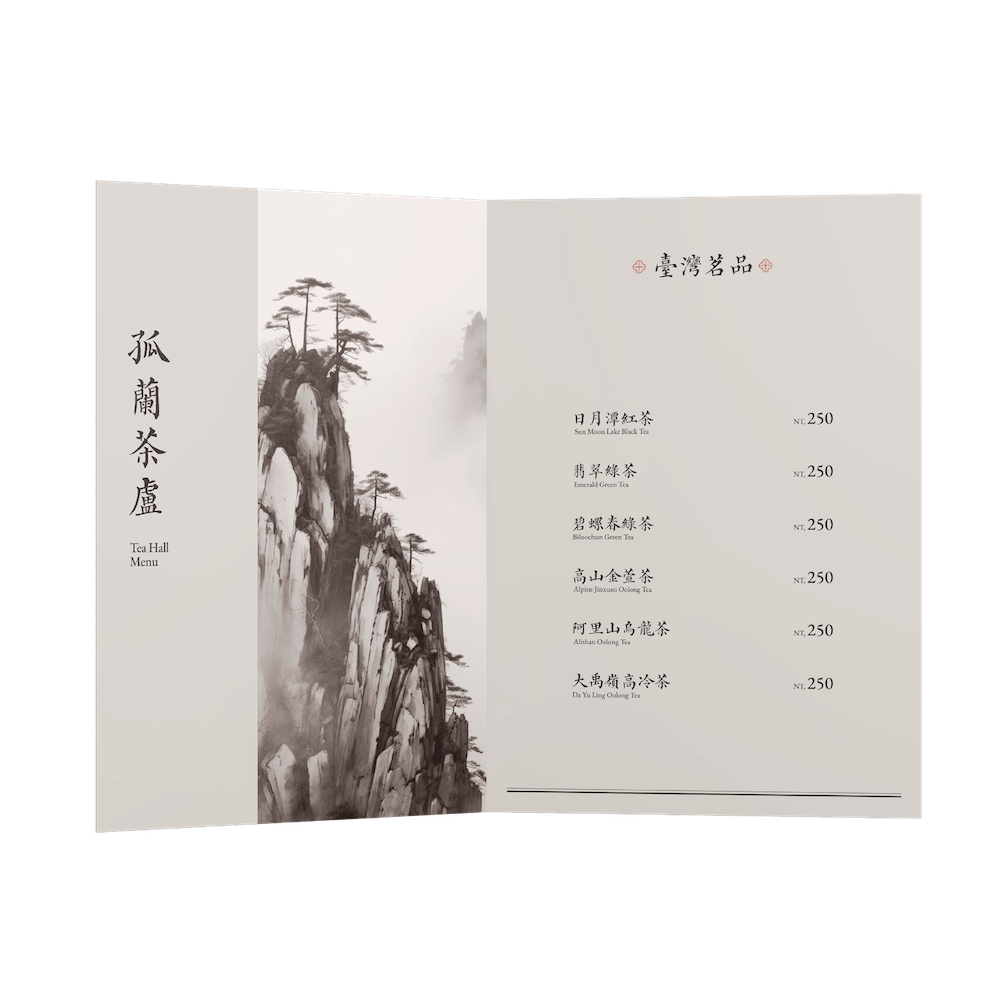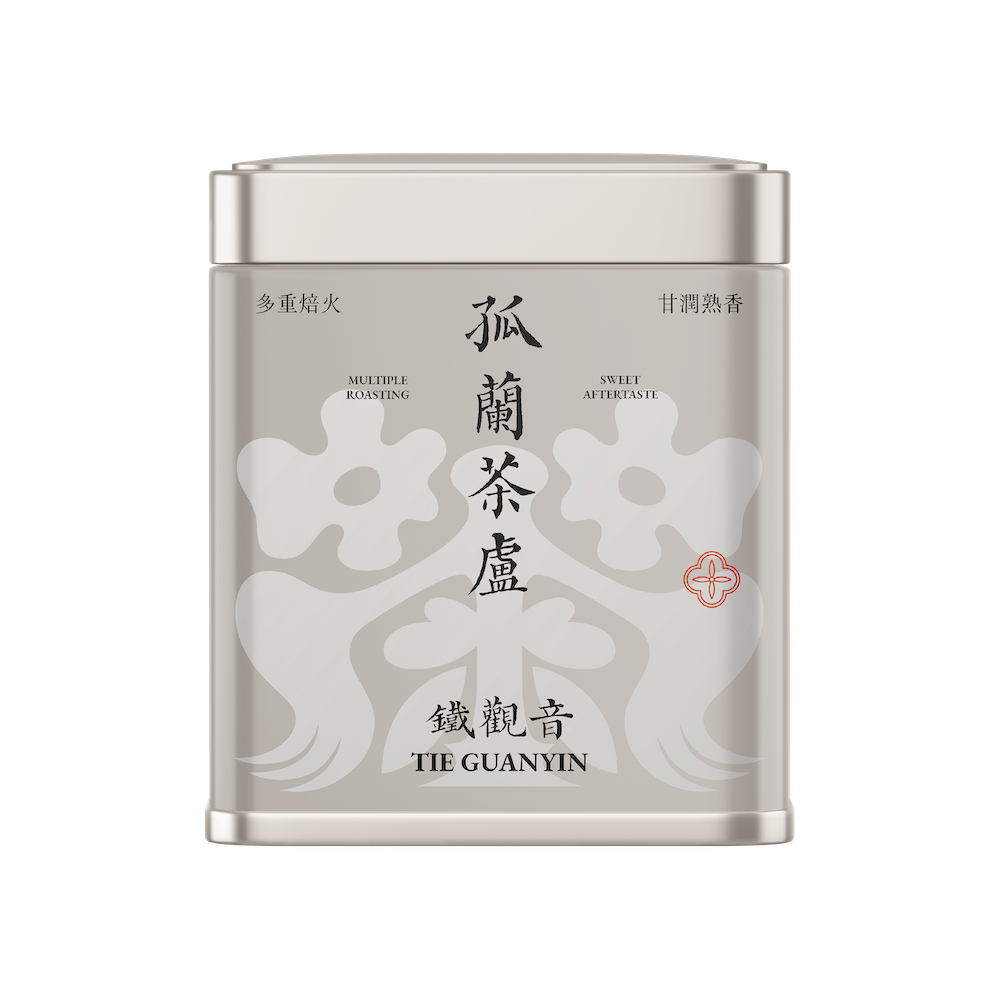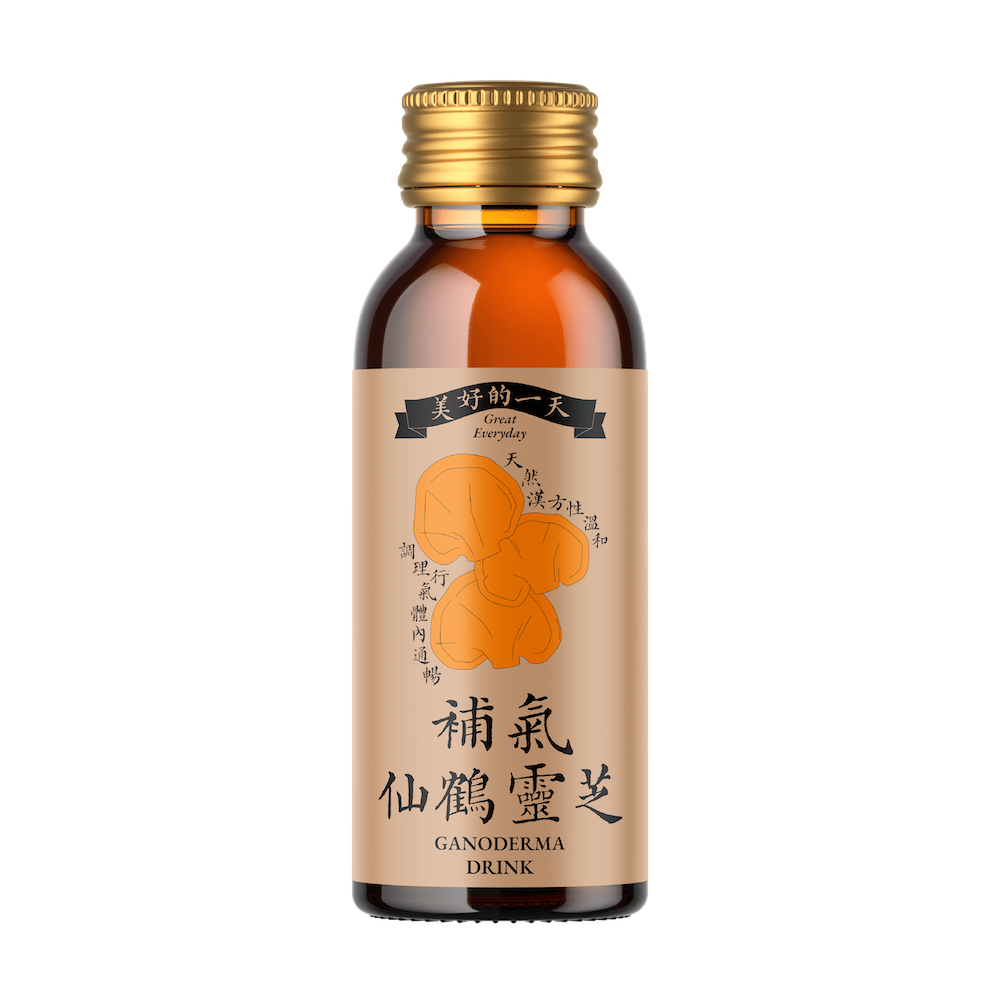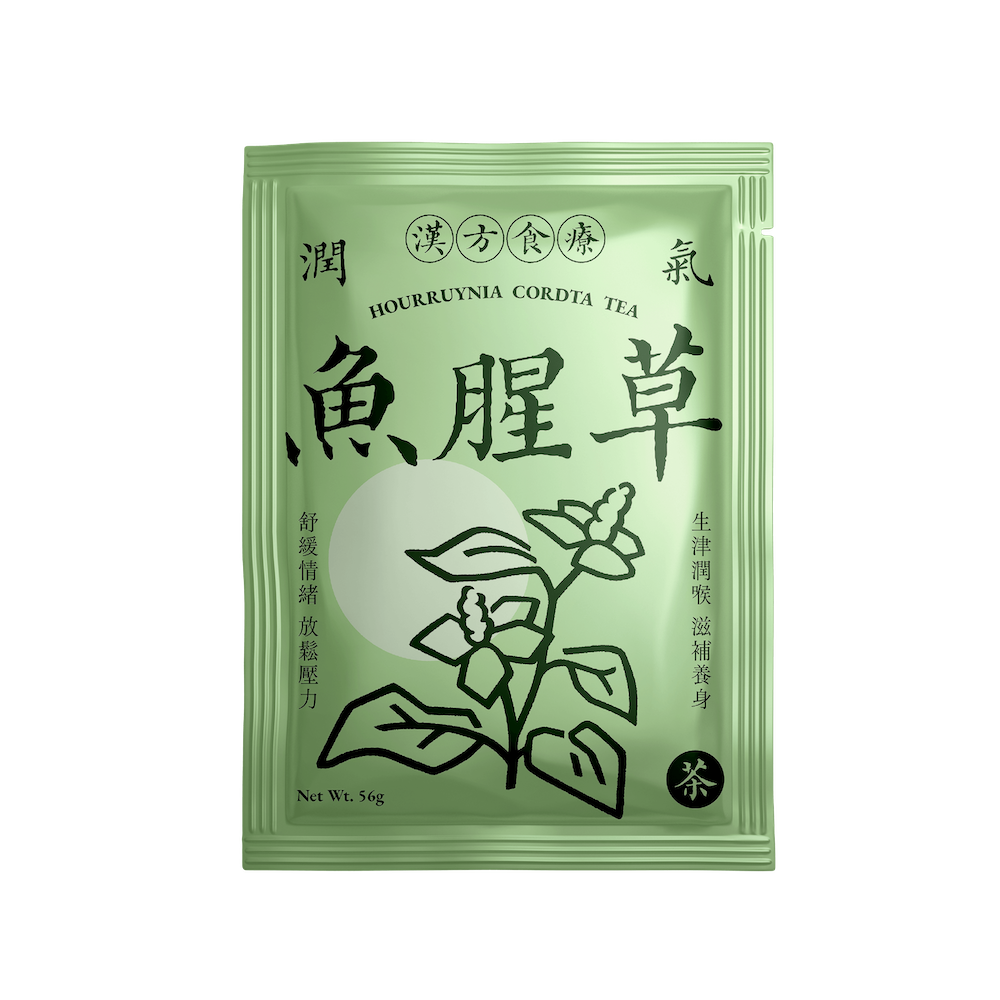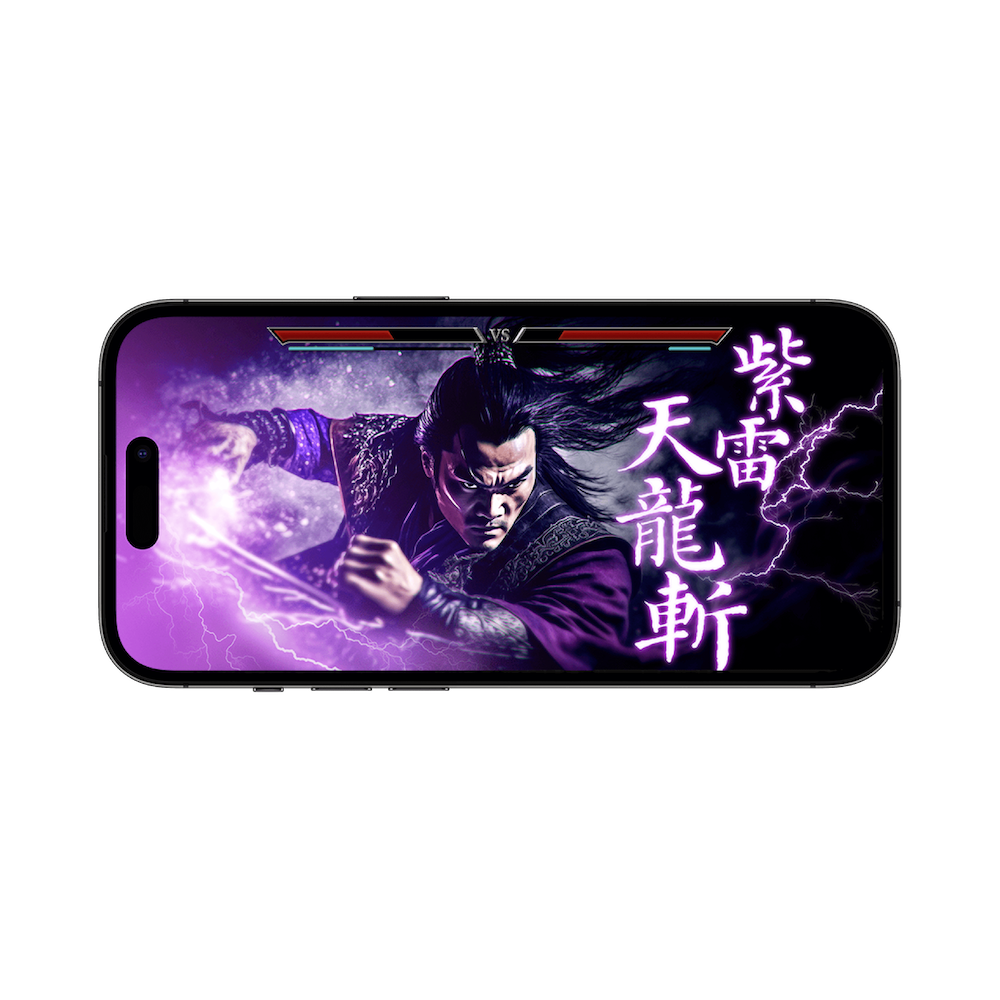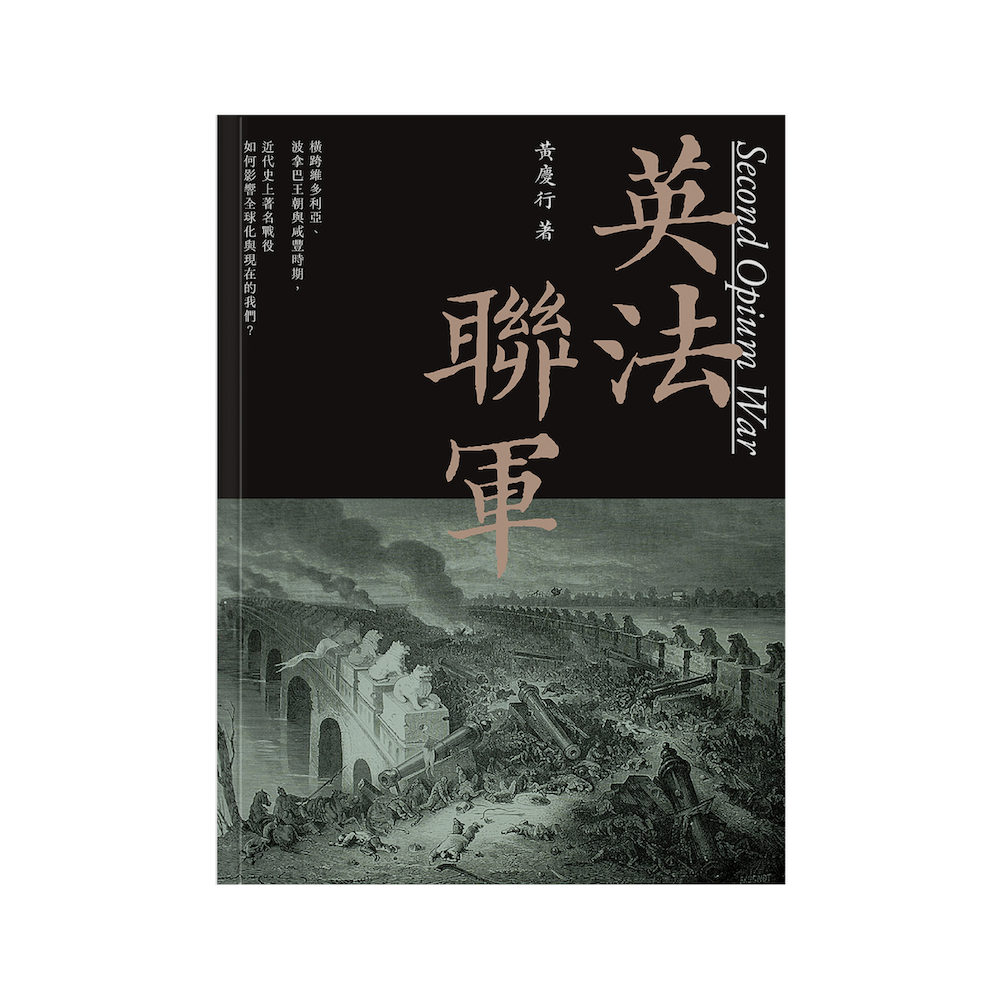
jf Bunguan
Lost during the wars of the 1850s, the “Five Classics” reemerge after 170 years as an exquisite digital typeface. Upright as a pine, steady as a mountain—let your stories gain new charm with every word.